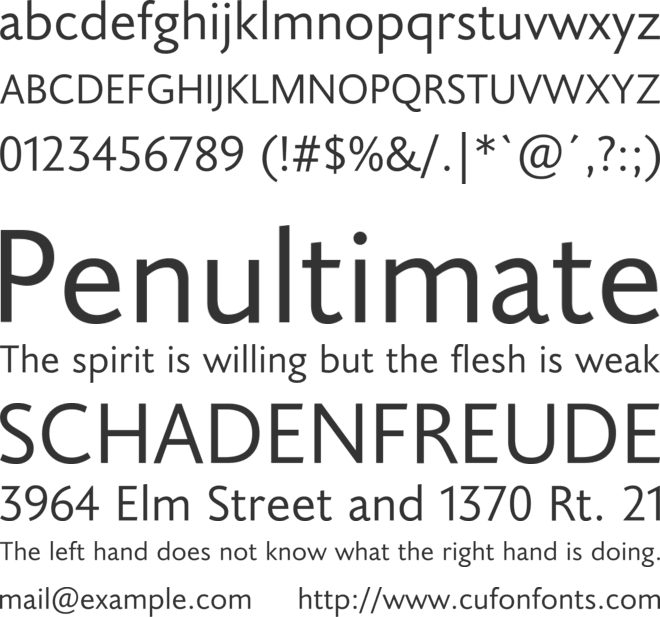
Joanna Sans Nova Font Family
Terrance Weinzierl
The Joanna® Sans Nova family is part of Monotype’s Eric Gill Series of typefaces.
Based on a re-creation of the original work of the master typeface designer, Joanna Sans Nova is a different approach to the past: an altogether new design that synthesizes Eric Gill’s typographic sensibilities.
It’s neither the Joanna design without serifs, nor a Gill Sans that’s easier to read. It was drawn for modern use and modern technology, but retains all the humanism that is important to Gill’s typefaces.
Joanna Sans borrows heavily from Joanna, but takes a direction of its own.
The design borrows influences from other Gill faces, like the low stroke weight contrast of Gill Sans and the calligraphic foundation of Perpetua, but is a 21st century interpretation of Gill’s design ethic.
The scale of the body and x-height of Joanna Sans have been increased from the original Joanna, to be better suited for contemporary demands of digital typography.
It has the varying width proportions and open apertures of a humanistic typeface, but also has hints of a geometric sans.
Joanna Sans has a simple elegance that makes it for perfect for publication applications, in addition to packaging and branding design.